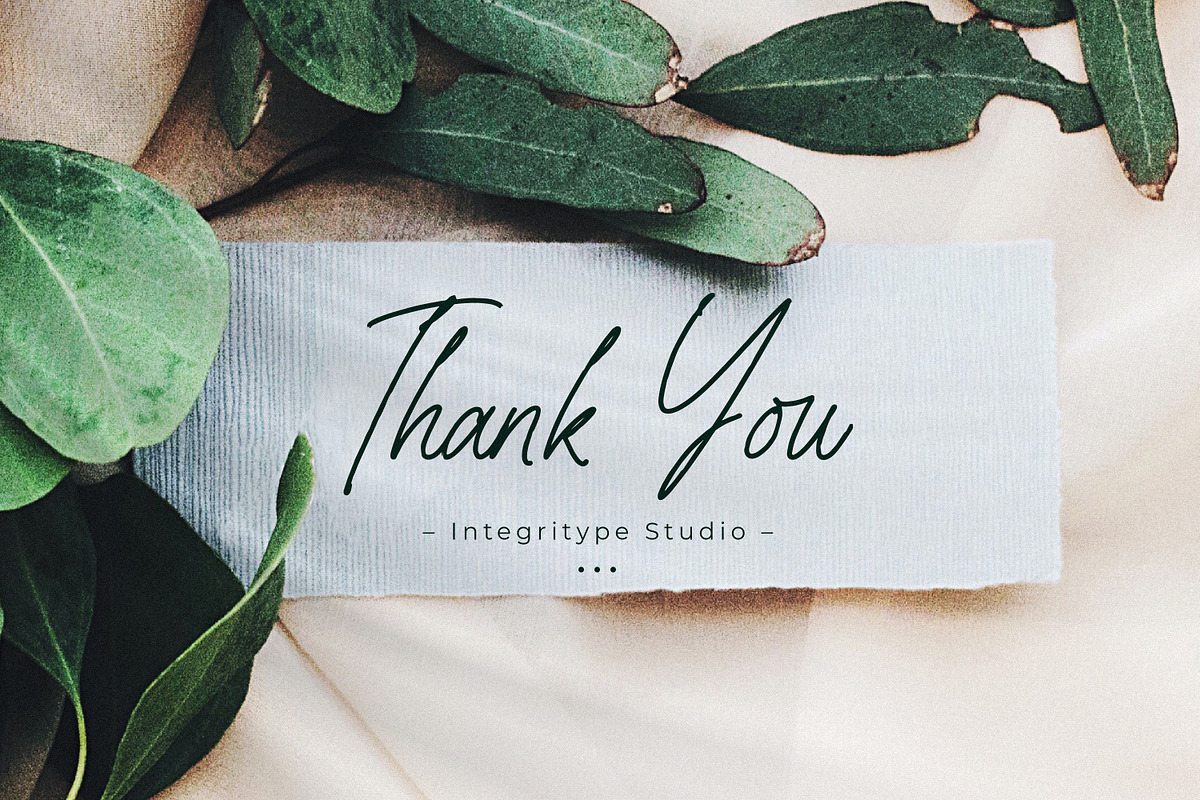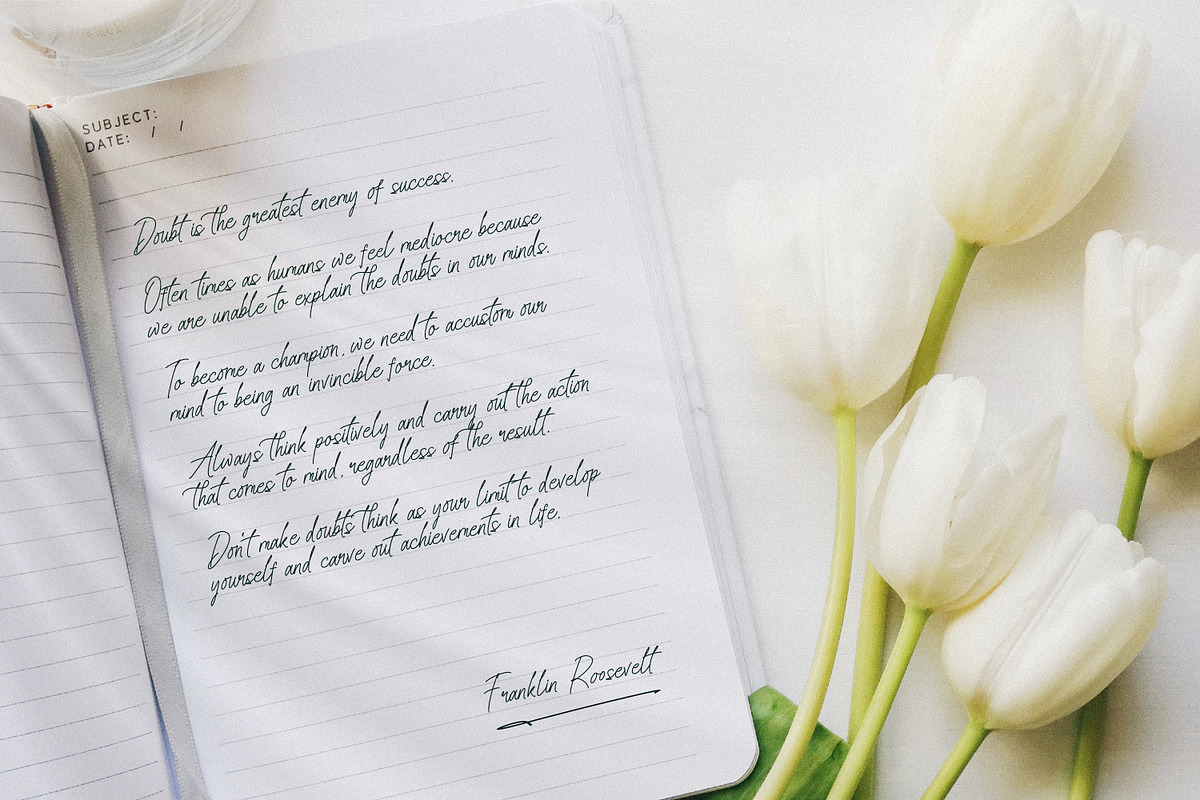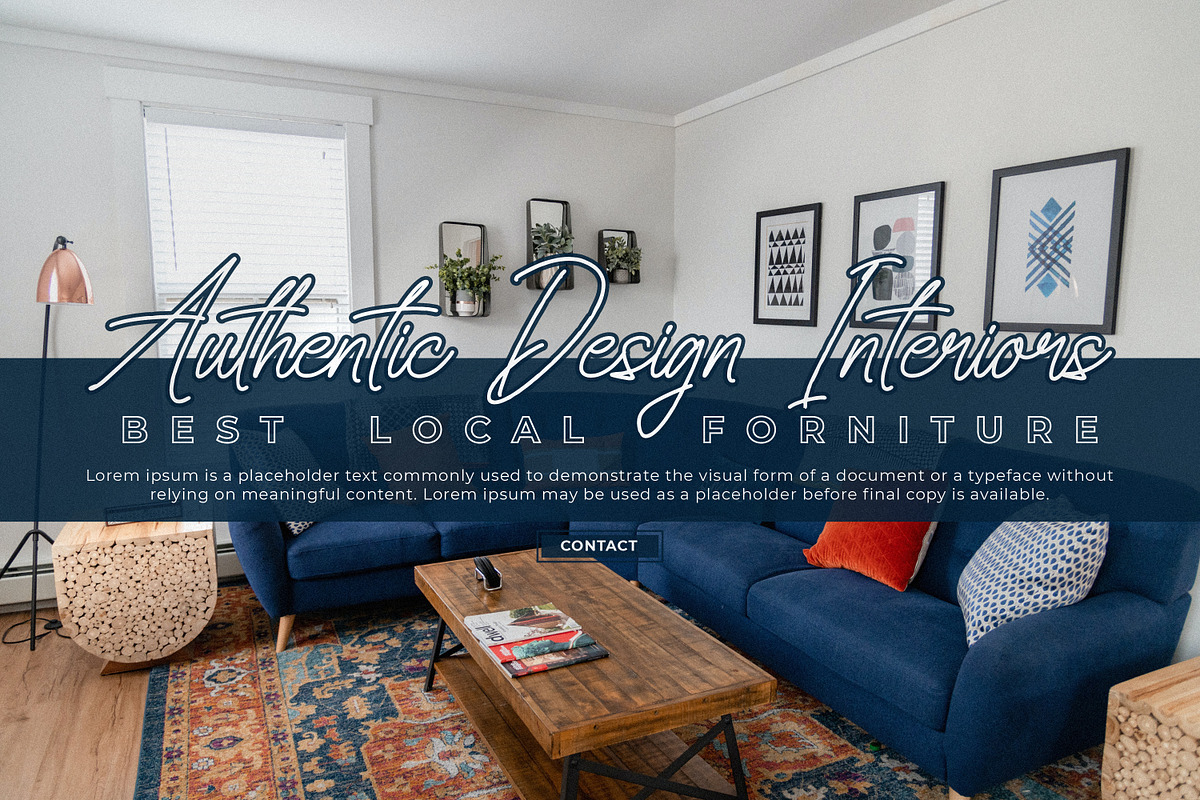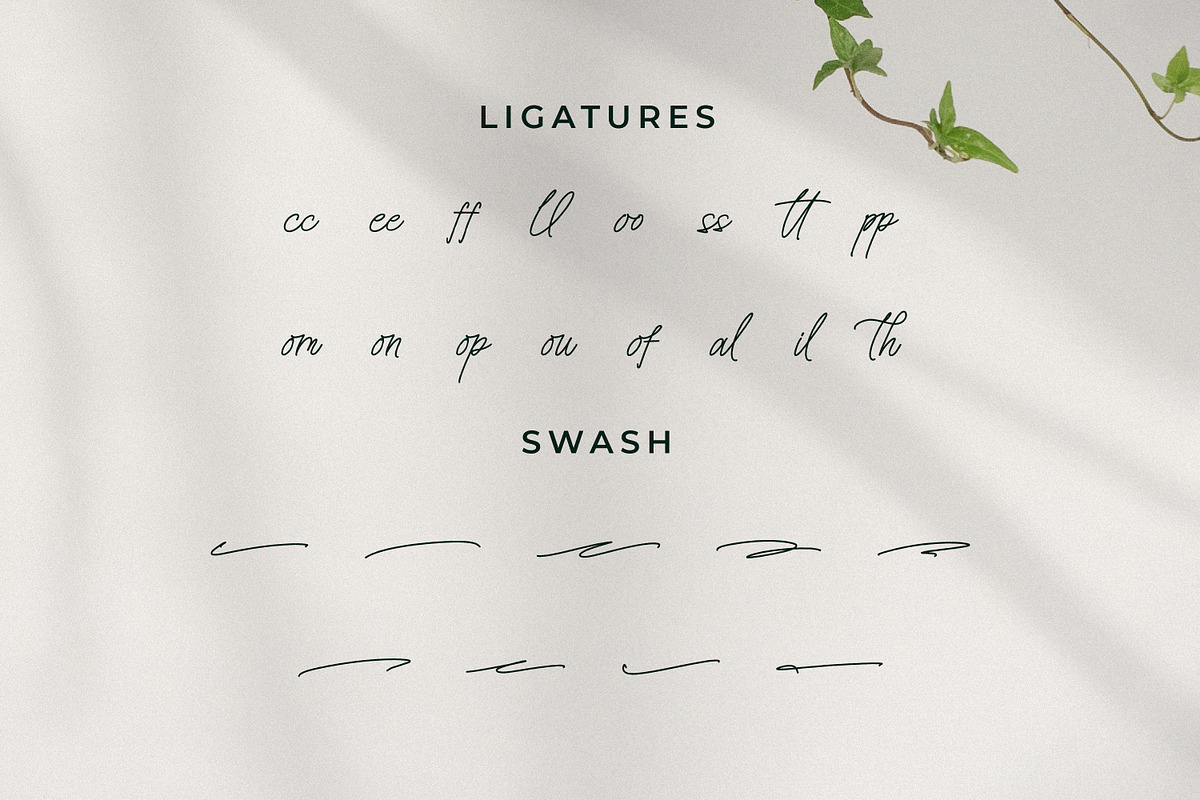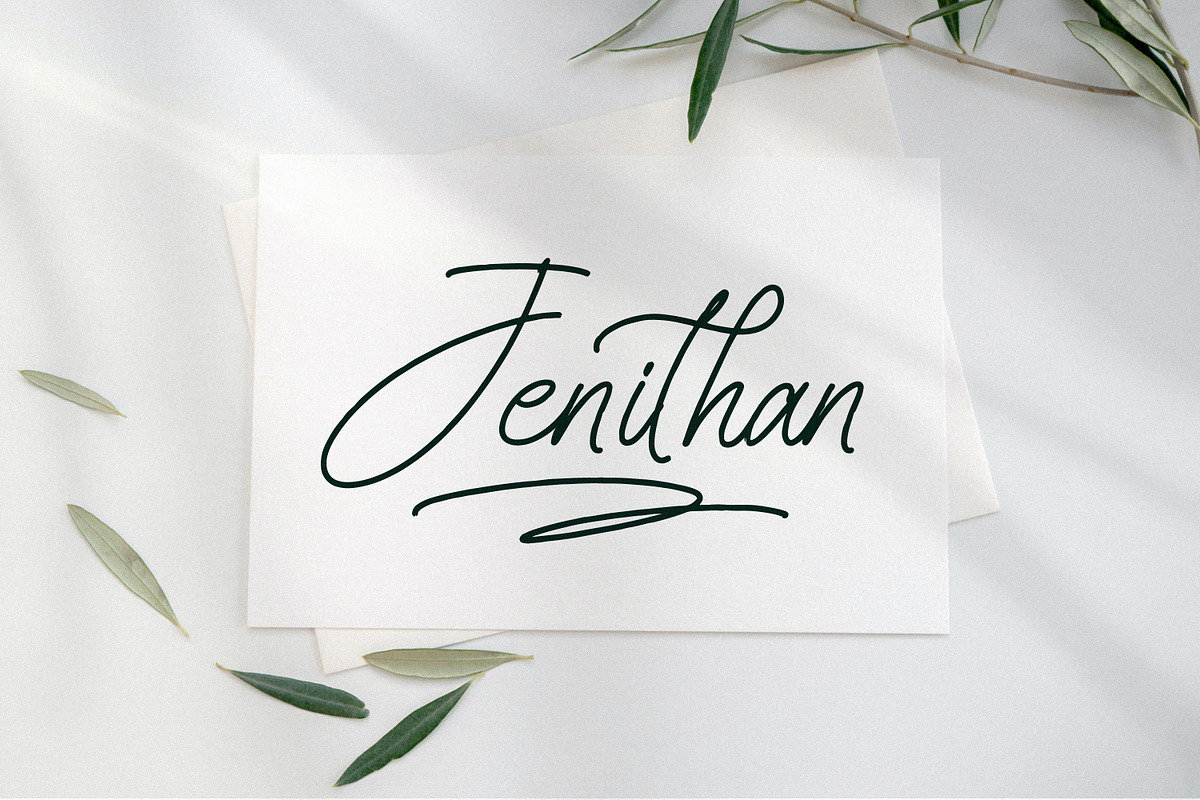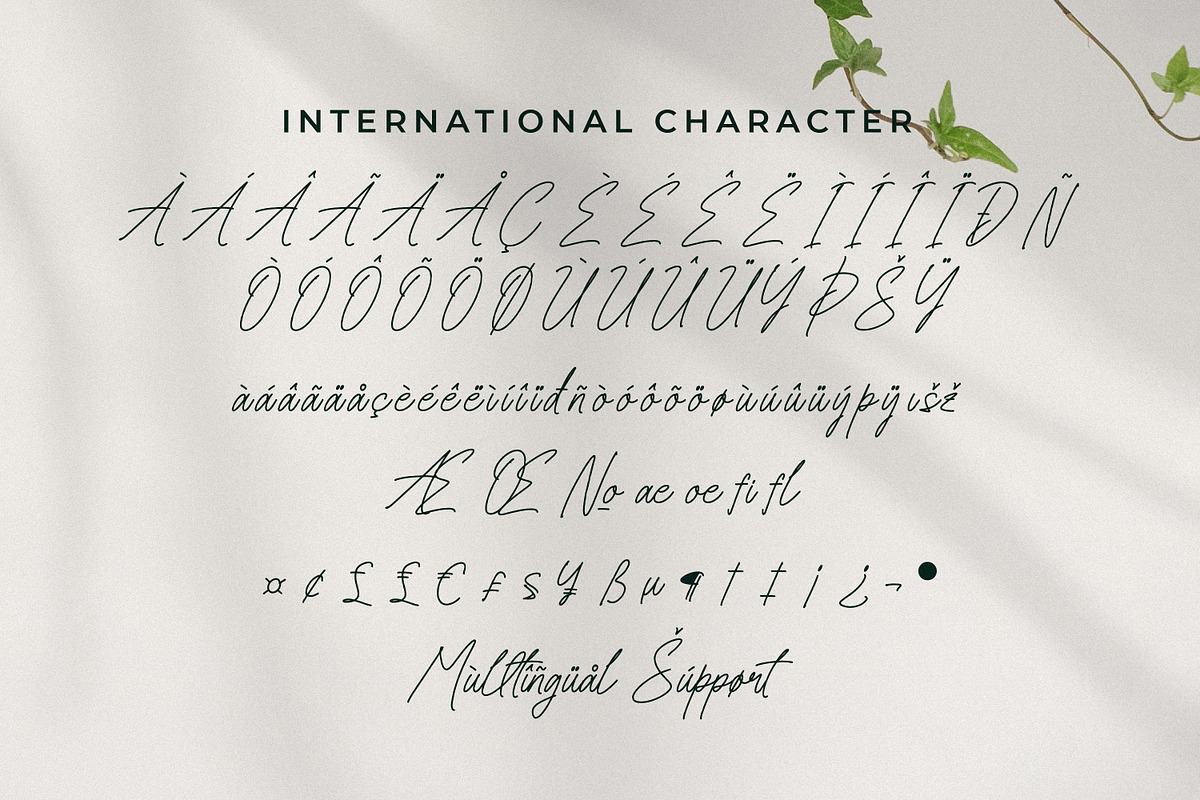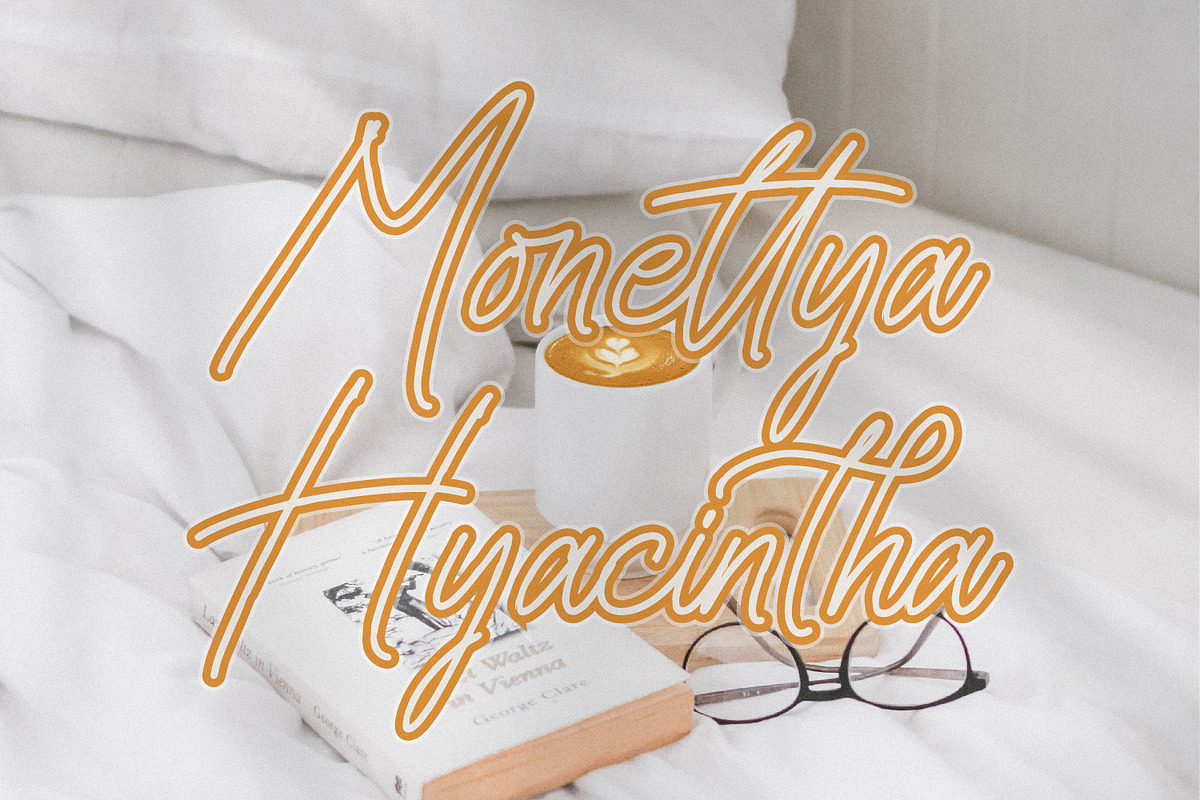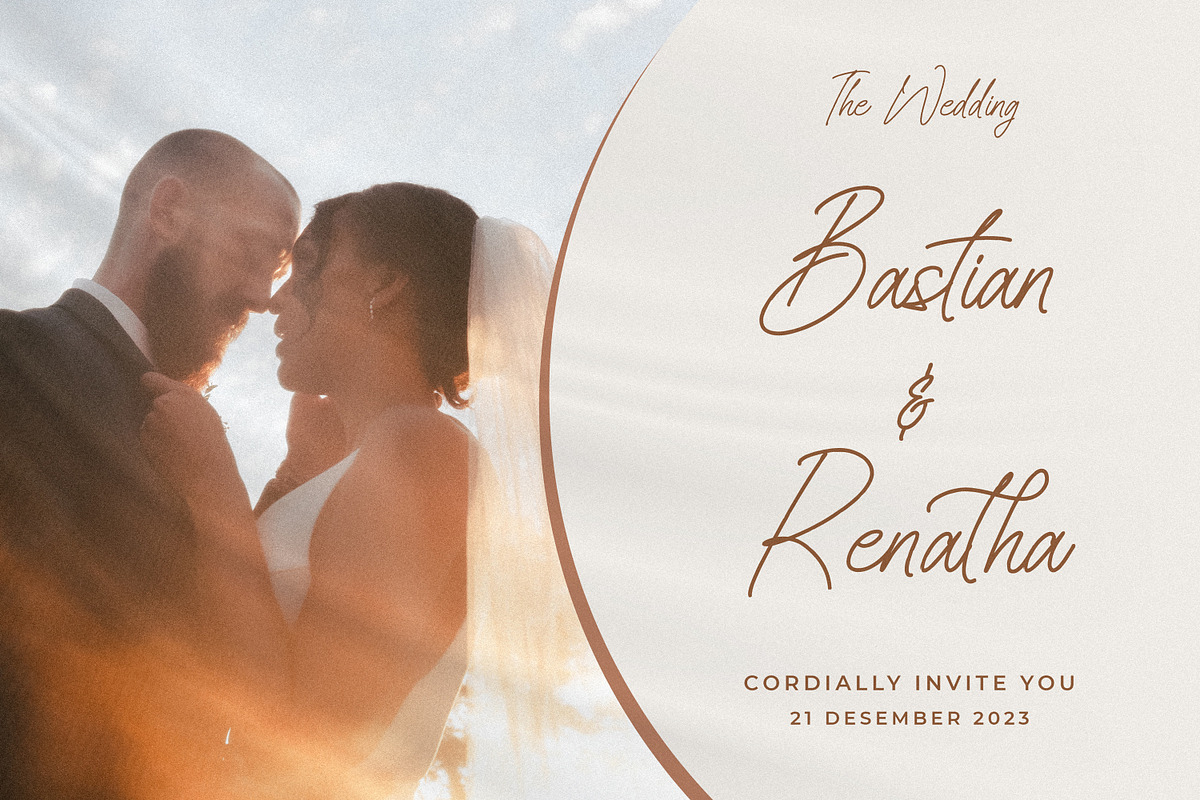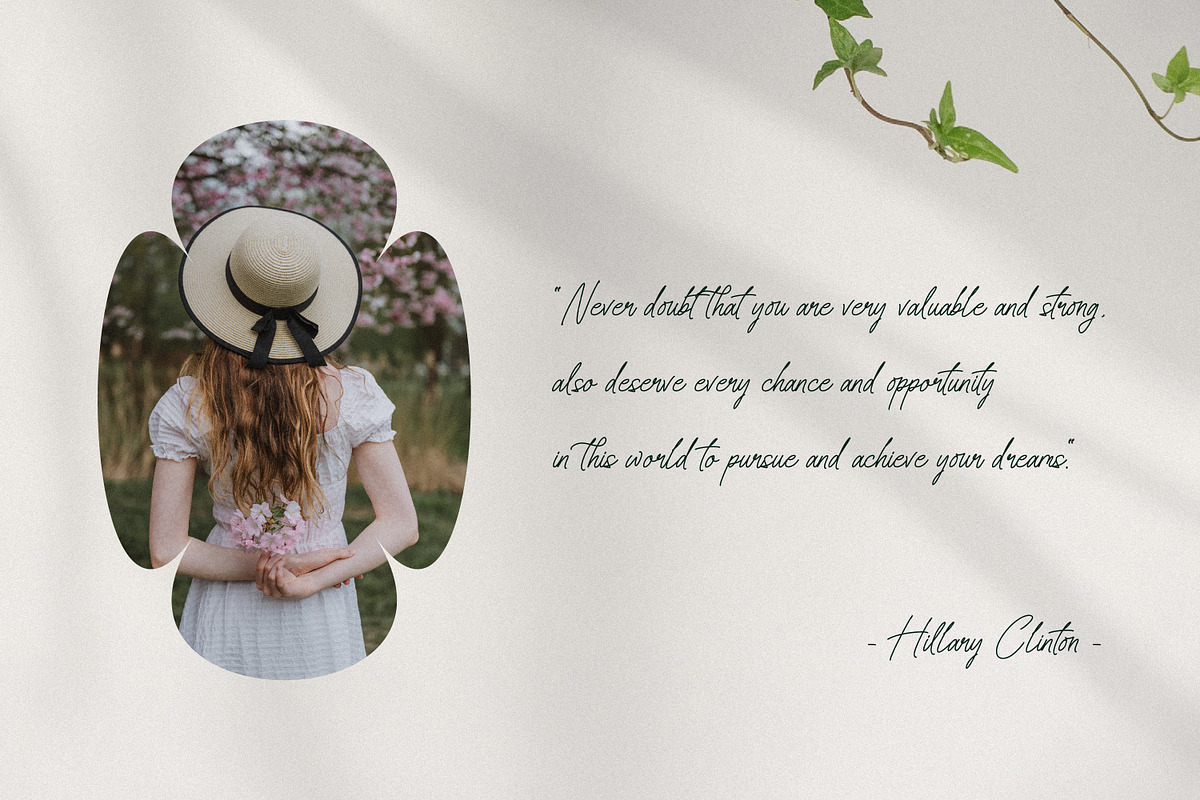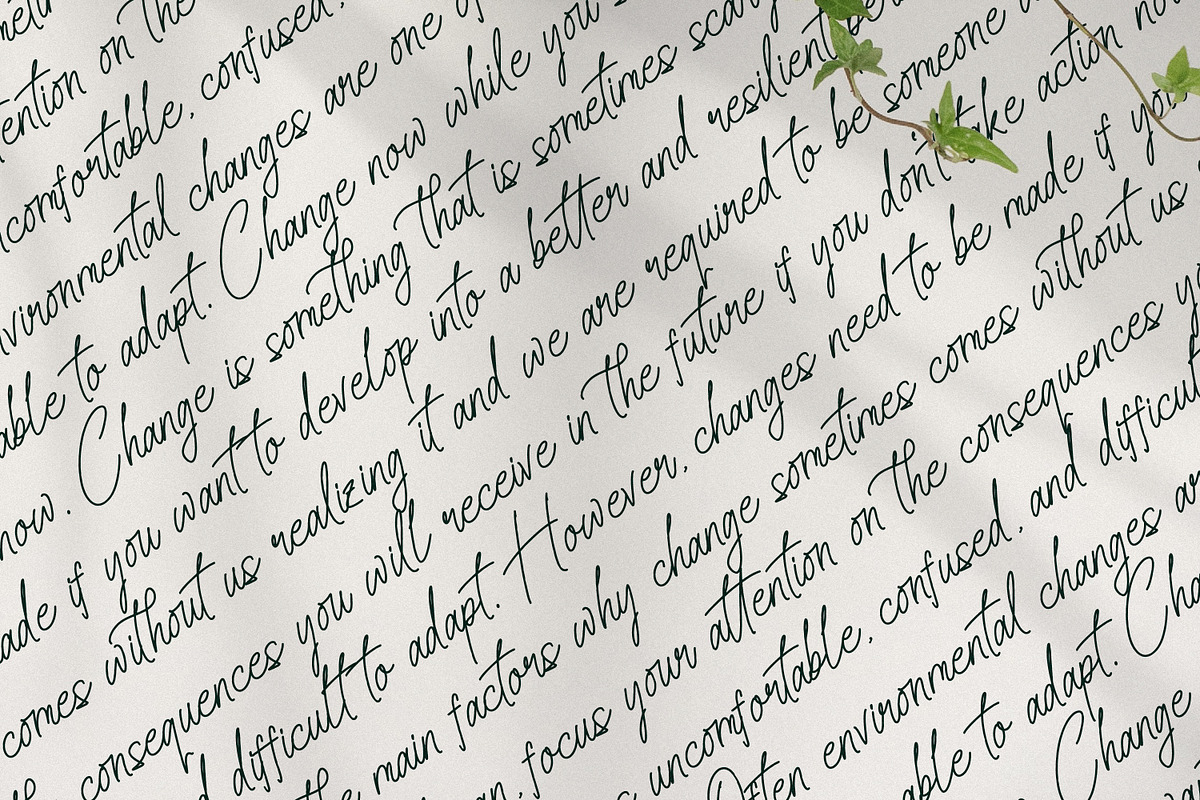
Senofeetha
Senofeetha - Monoline Brush Signature Font, from Integritype Studio, is a premium Monoline Brush Signature Font, suitable for any projects such as: logos, branding projects, homeware designs, product packaging, mugs, quotes, posters, shopping bags, t-shirts, book covers, name card, invitation cards, greeting cards, label, photography, watermark, special events, and all your other luxury projects that need a premium signature taste.
Ligature, Alternate & Swashes